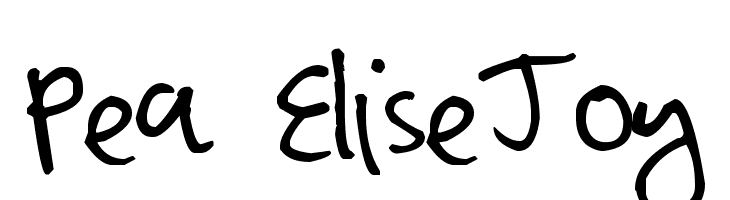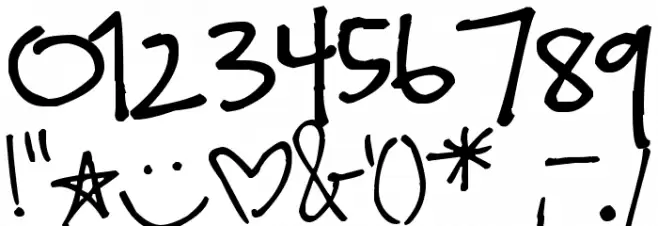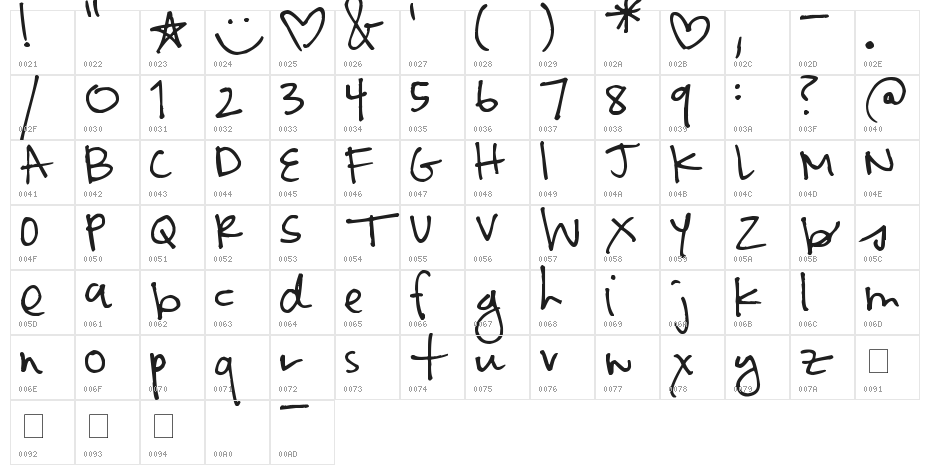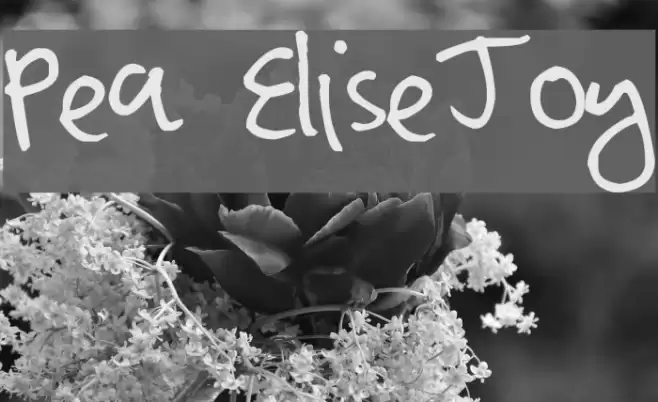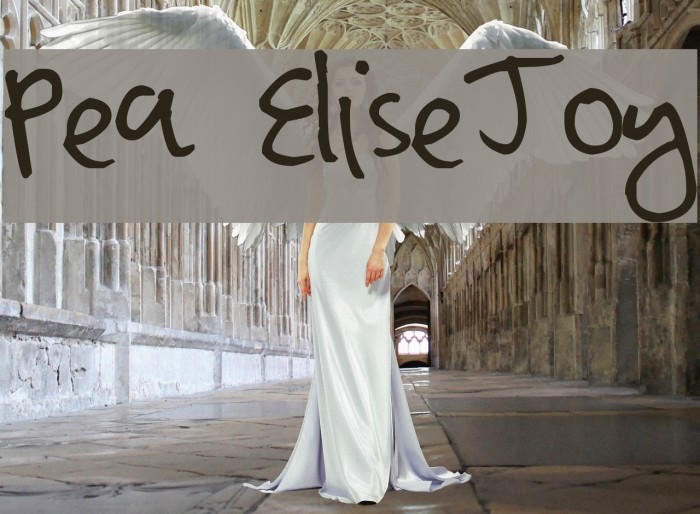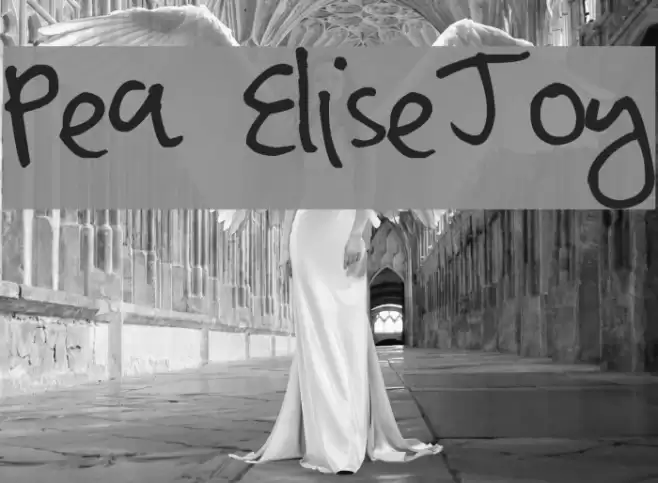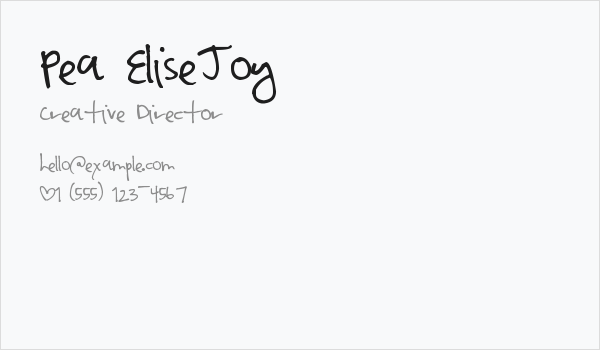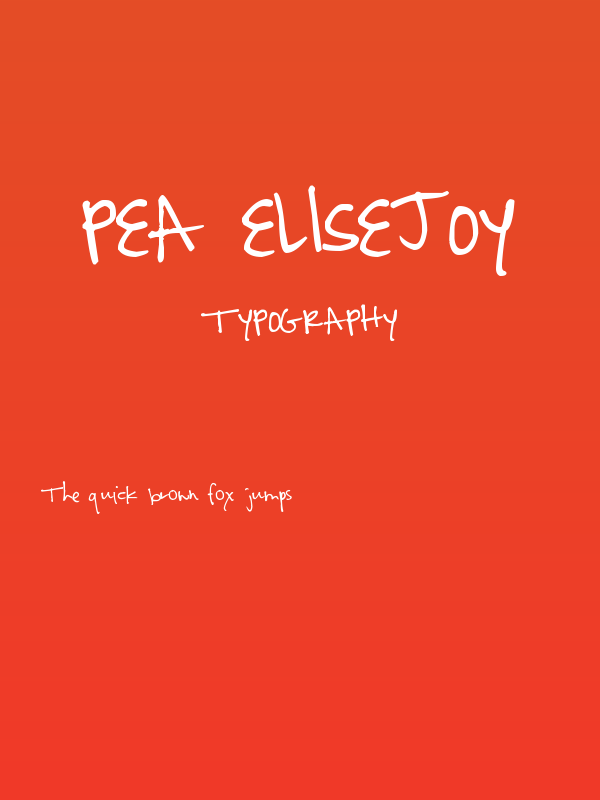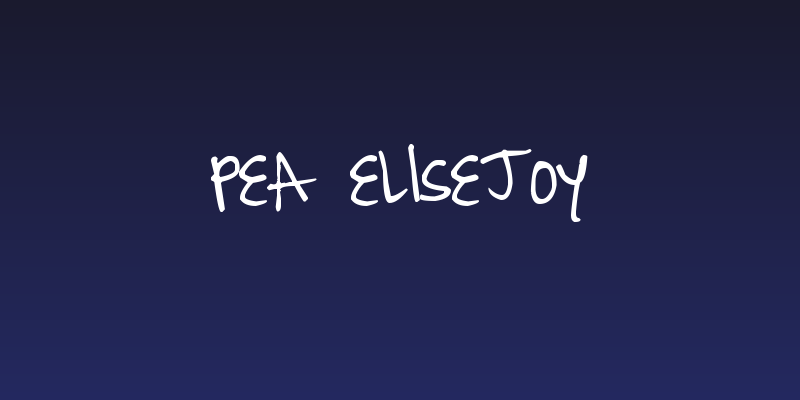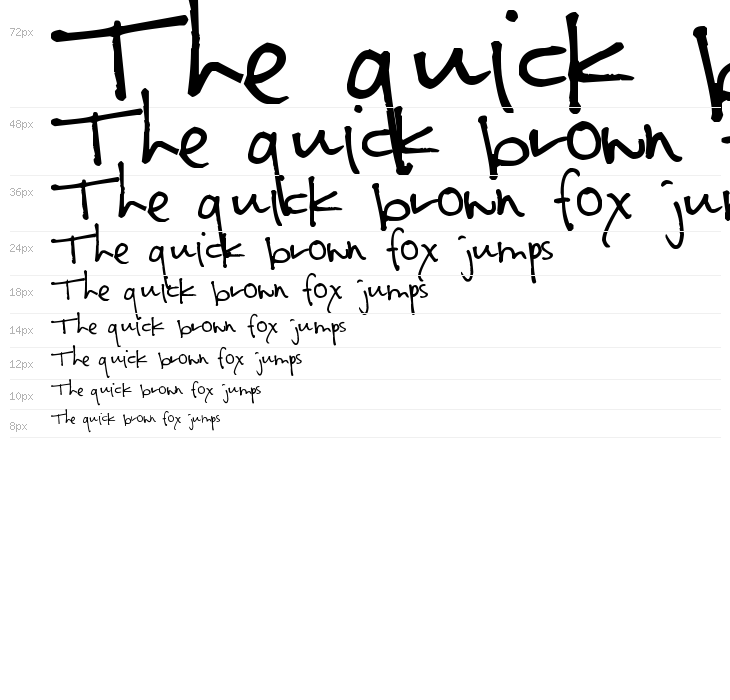
Pea EliseJoy Font
Pea EliseJoy Description
This font exudes a playful and casual handwritten style, characterized by its irregular strokes and spontaneous appearance. The letters are free-flowing and slightly tilted, giving it a personal and informal touch. The uppercase and lowercase letters maintain a consistent style, with rounded edges and varying stroke widths that add to its charm. The numbers and special characters follow the same whimsical aesthetic, making it suitable for creative and fun projects. Its overall appearance is reminiscent of a quick, yet deliberate, handwritten note.
| Proposed Projects | Ideal for personal notes, greeting cards, children's books, and informal branding. |